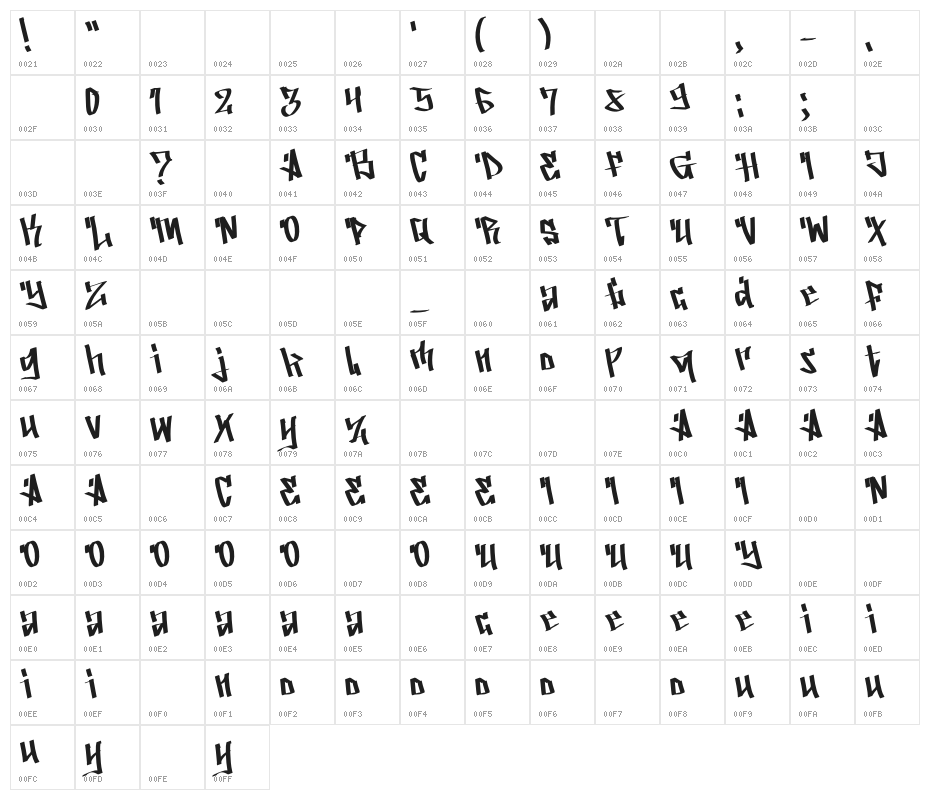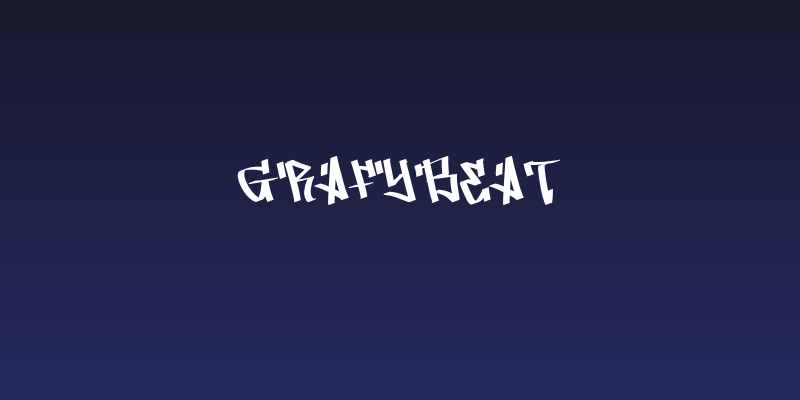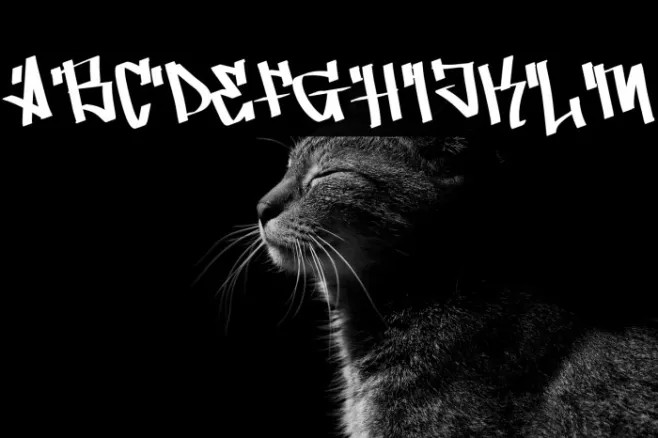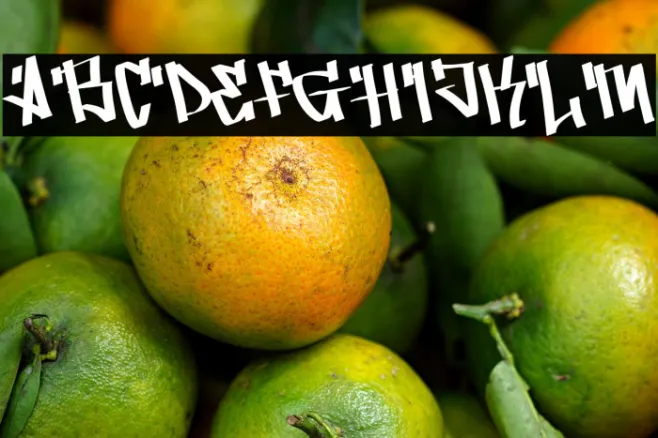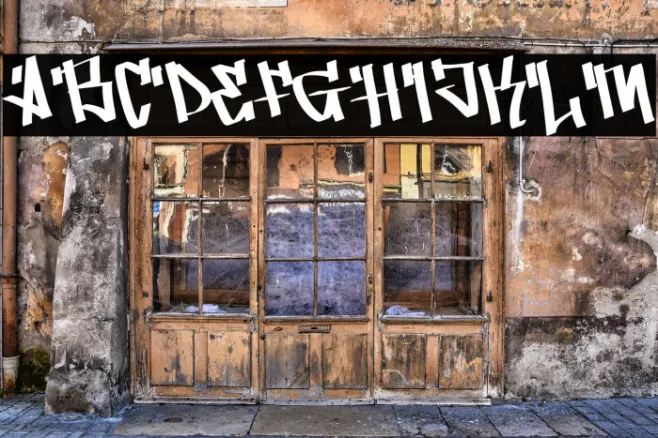
Grafybeat Font
Grafybeat Description
This font features a bold and dynamic style with sharp, angular lines and a graffiti-inspired aesthetic. The characters are highly stylized, with exaggerated strokes and a sense of movement that gives the text an energetic and rebellious feel. The uppercase and lowercase letters maintain a consistent design, while the numbers and special characters complement the overall look. This font is ideal for projects that require a bold statement and a modern, urban vibe.
| Overall Style | Modern, Urban, Graffiti |
| Proposed Projects | Perfect for street art designs, music album covers, urban-themed posters, and edgy branding projects. |